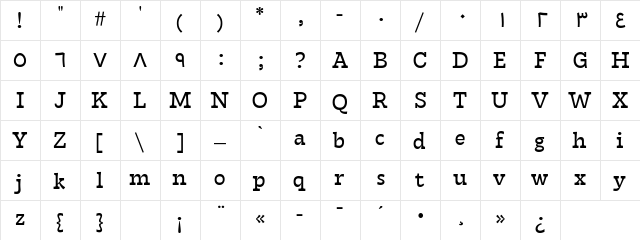
Tarif Arabic Regular
| Foundry | Zetafonts |
| Designer | Andrea Tartarelli, Cosimo Lorenzo Pancini, Francesco Canovaro |
Design Context for Tarif Arabic Typeface
Tarif Arabic takes a measured approach to typography — its balanced proportions and neutral character make it a reliable workhorse for both digital and print work.